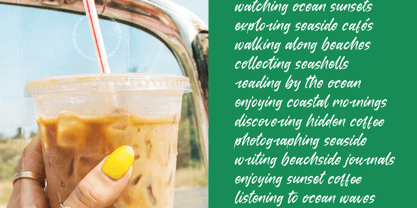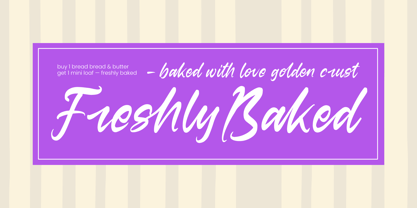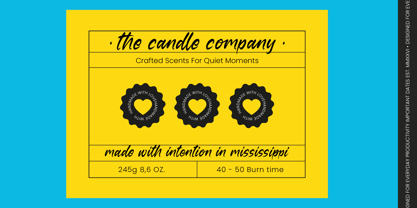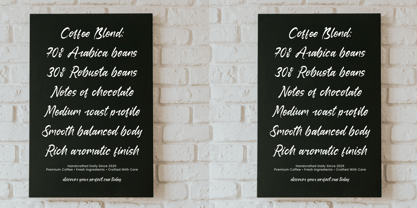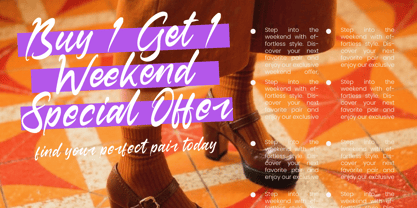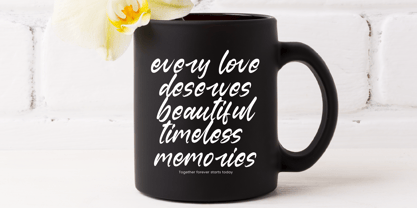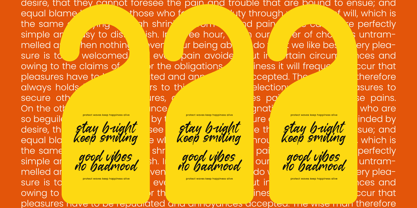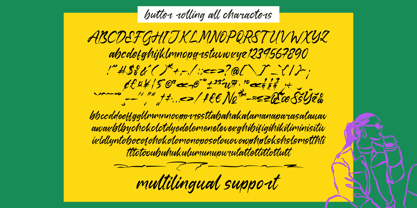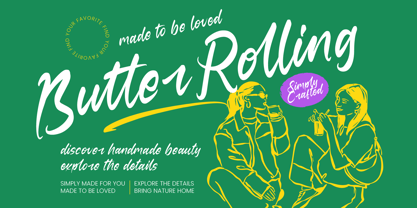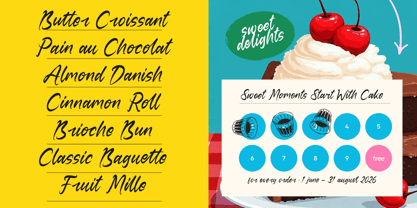
Butter Rolling
Die Schriftfamilie Butter Rolling wurde von Heru Utama Putra entworfen und von Letterena Studios veröffentlicht. Butter Rolling enthält 2 Stile und Familienpaketoptionen. Mehr über diese Familie
Butter Rolling - Natural Handwritten
Elevate your creative vision with a typeface that perfectly embodies raw, organic energy and effortless style. Butter Rolling - Natural Handwritten offers a dynamic flow and an authentic handcrafted aesthetic that captures the essence of modern calligraphy. Its fluid strokes and natural rhythm provide a human touch to digital designs, ensuring your message feels personal and approachable. This versatile script is designed to stand out, offering a unique blend of casual sophistication and artistic flair for any contemporary project.
Reach a diverse audience with a typeface designed for global impact and uncompromising clarity. With its extensive multilingual support, Butter Rolling - Natural Handwritten adapts seamlessly across global markets, making it incredibly versatile for international projects. This comprehensive character set ensures that your brand voice remains consistent and impactful regardless of the region or language. By integrating extensive glyphs and smart ligatures, it provides designers with the tools needed to maintain visual excellence in a competitive landscape.